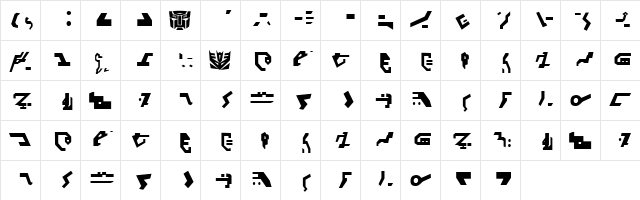
Decepticon Regular Normal
Decepticon Regular is a composed and adaptable typeface that performs quietly and consistently across a wide range of design contexts.